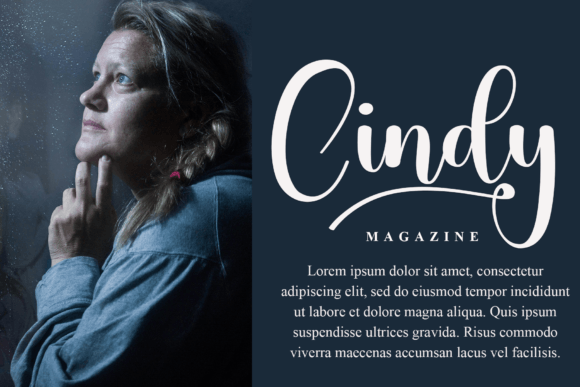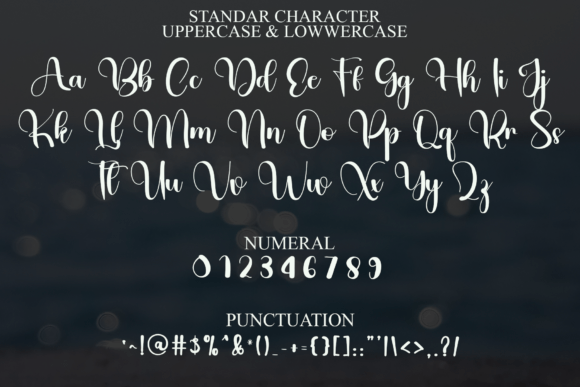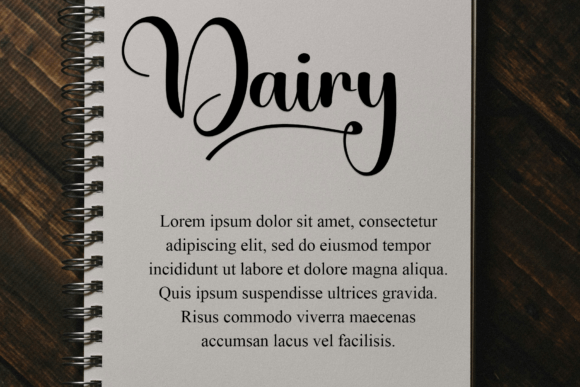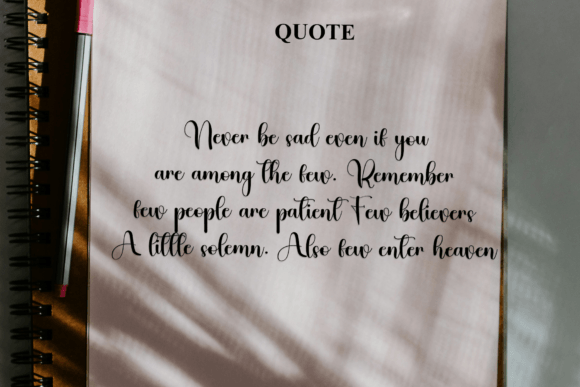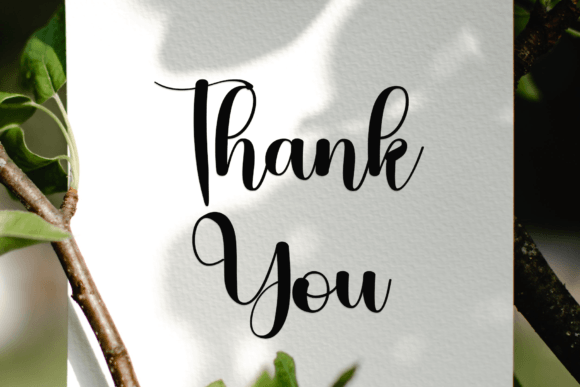
Unleashing Creativity: The Magic of Handwritten Typography
As a designer, there’s no feeling quite like the rush of creativity that comes from bringing an idea to life. It’s the spark of inspiration, the click of the mouse, and the instant satisfaction of seeing your vision take shape. For many of us, it’s the perfect moment to break out our trusty font arsenal and find the perfect tool to bring our designs to life.
That’s where the Bluey Font comes in – a lovely and timeless handwritten font that’s perfect for creating eye-catching logos, branding, and quotes. With its unique and beautiful touch, this font has the power to make your design come alive and capture the attention of your audience. Whether you’re a seasoned designer or just starting out, the Bluey Font is a valuable addition to any toolkit, offering endless possibilities for creative expression.
Key Features of Bluey Font
- Unique Characteristics: The font’s unique characteristics include its playful and energetic feel, with subtle variations in letterform and spacing that give it a hand-drawn look.
- Stylistic Sets: Bluey Font includes a range of stylistic sets that allow users to customize the font’s look and feel, including alternate letterforms, swash letters, and ligatures.
Bluey Font Review
As a designer, I’ve had the chance to work with the Bluey Font, and I must say it’s a mixed bag. On the one hand, it’s a beautiful font with a lot of character. ✨ The bold lines and playful curves make it perfect for children’s books, educational materials, or anything that needs a touch of whimsy. ✨ The font also comes in a range of weights and styles, which is always a plus.
However, there are some limitations to consider. ⚠️ For one, the font can be quite loud, so it’s not ideal for use in small text or body copy. ⚠️ Additionally, the font may not be the best choice for formal or professional documents, as it can come across as too playful or childish.
Here are some specific pros and cons:
- ✨ Beautiful, playful design
- ✨ Wide range of weights and styles
- ⚠️ Can be too loud for small text or body copy
- ⚠️ May not be suitable for formal or professional documents
Overall, I think the Bluey Font is a great choice for the right project. If you’re looking for a fun, playful font that will add some personality to your design, this might be the perfect fit. But if you need a more serious or professional font, you may want to look elsewhere.
The Bluey font is ideal for creating fun and playful designs, such as:
- Marketing materials for kids’ products or services
Are there any font pairing recommendations for Bluey Font?
Yes, Bluey Font pairs well with other sans-serif fonts, such as Open Sans, Lato, and Montserrat. For a more elegant look, you can pair Bluey with a serif font, like Merriweather or Georgia. Experiment with different font combinations to find the perfect match for your design project.